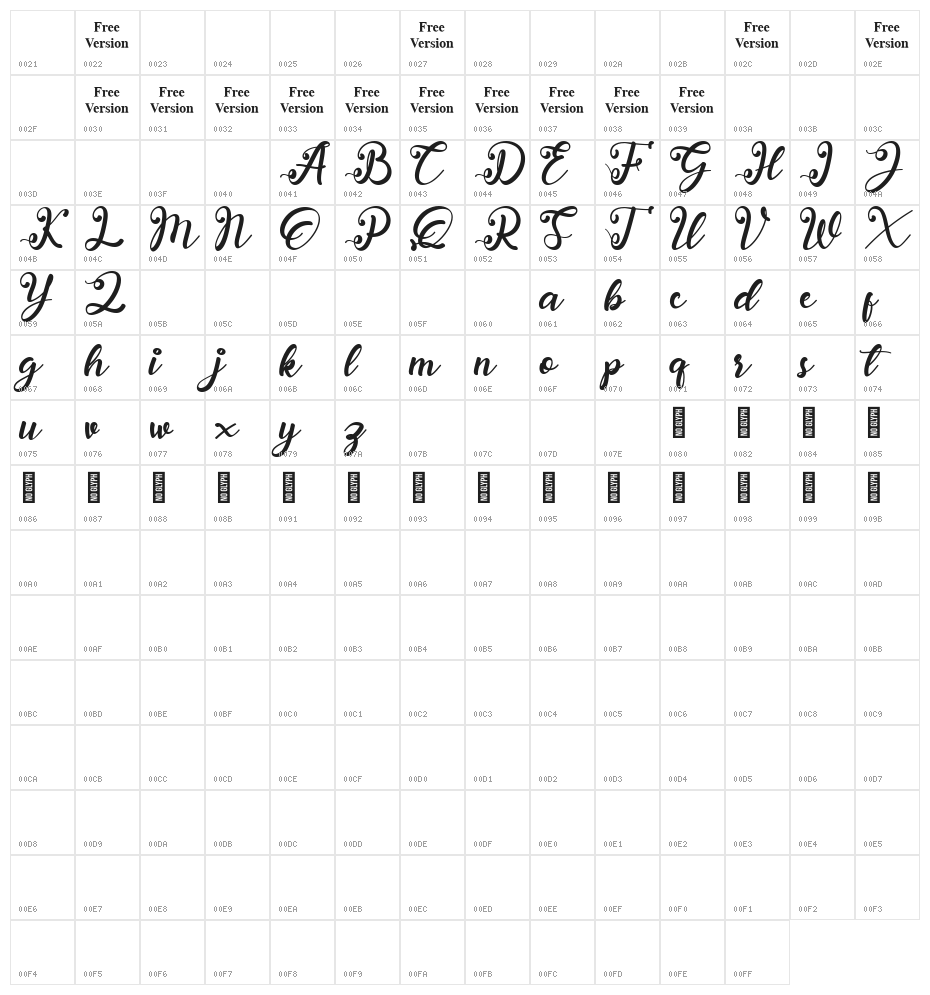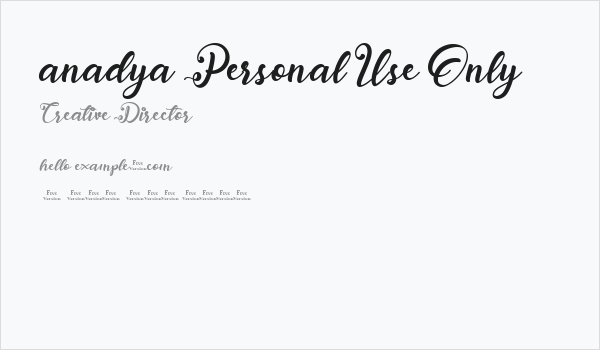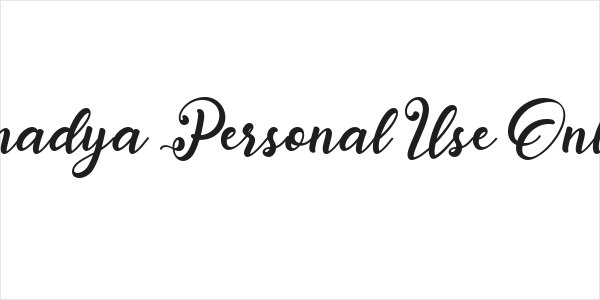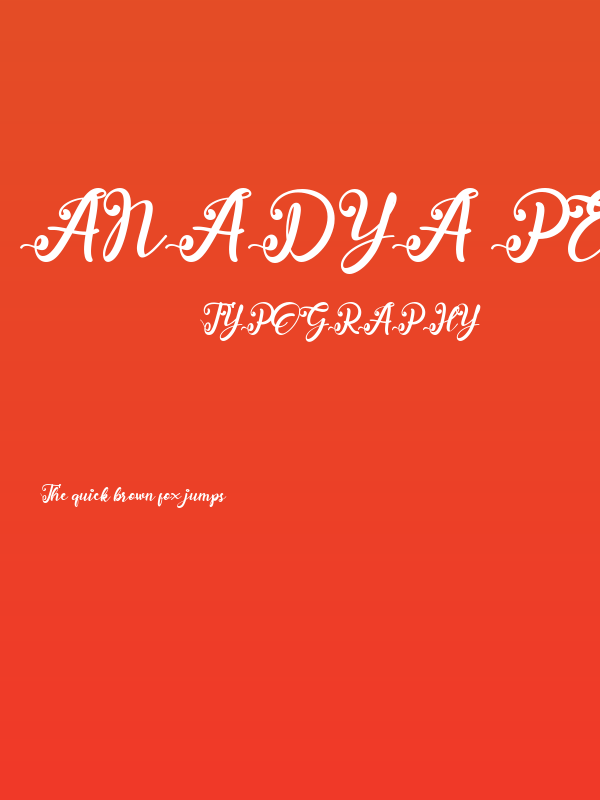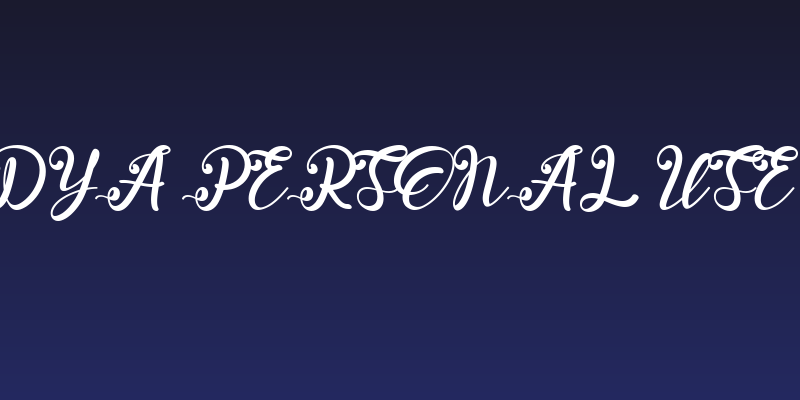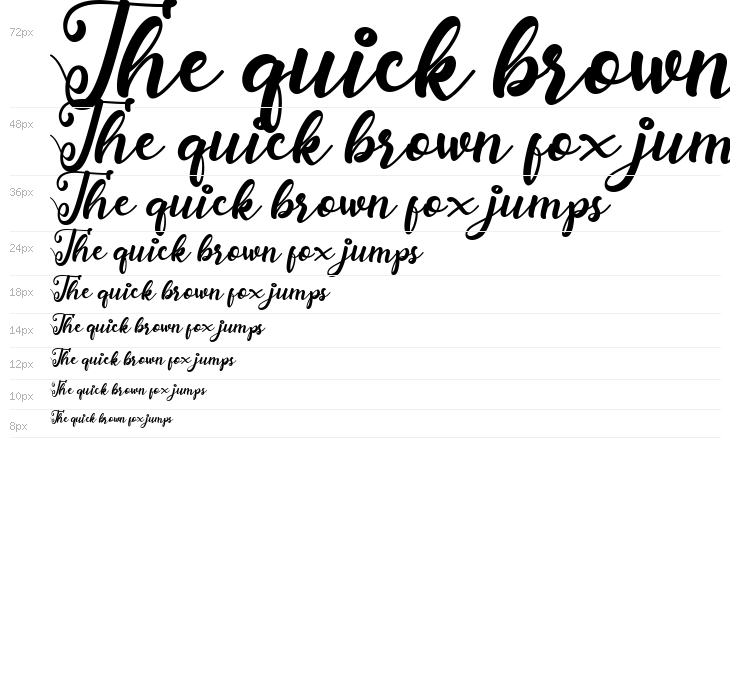
anadya Personal Use Only Font
anadya Personal Use Only Description
This font features an elegant and flowing script style with decorative swashes and flourishes that enhance its visual appeal. The uppercase letters are adorned with intricate loops and curves, giving them a sophisticated and ornate appearance. The lowercase letters maintain a consistent flow, with some characters featuring unique embellishments that add to the overall charm. The font's design is reminiscent of calligraphy, making it suitable for projects that require a touch of elegance and refinement. Its bold strokes and high contrast between thick and thin lines contribute to its striking presence, making it ideal for attention-grabbing headlines or artistic designs.